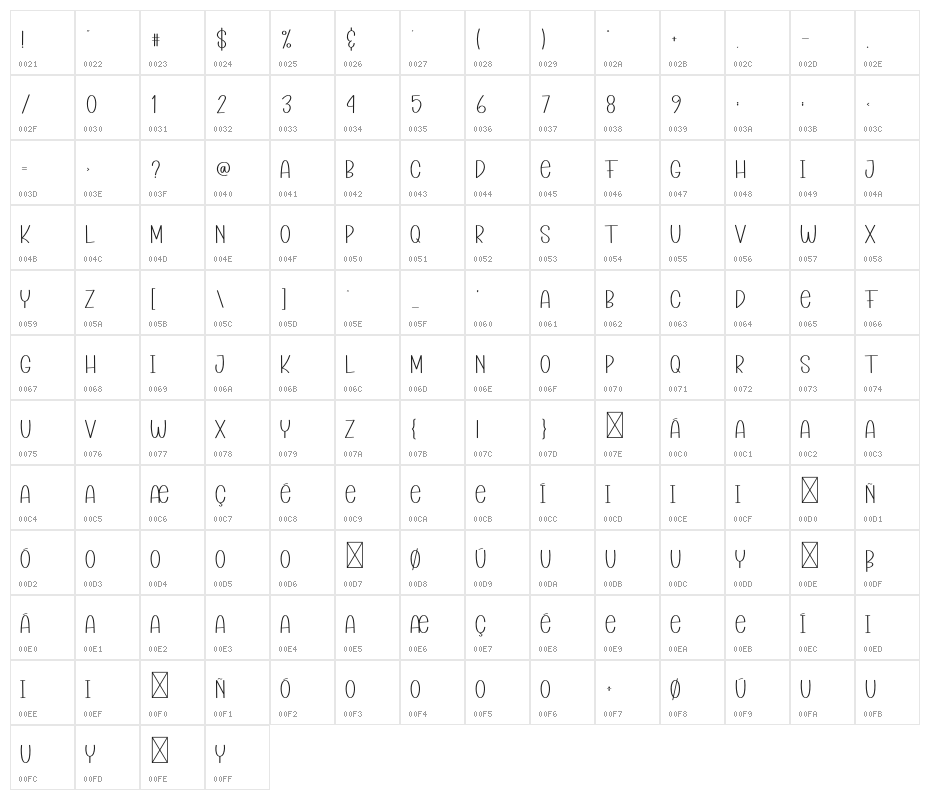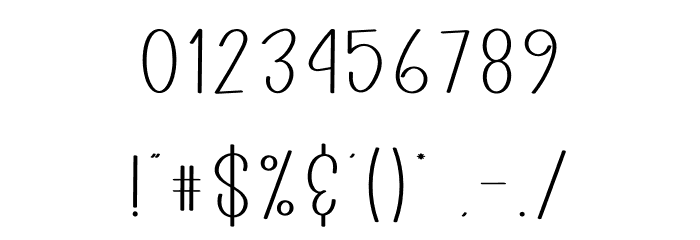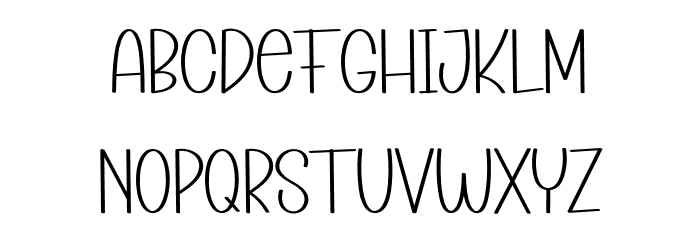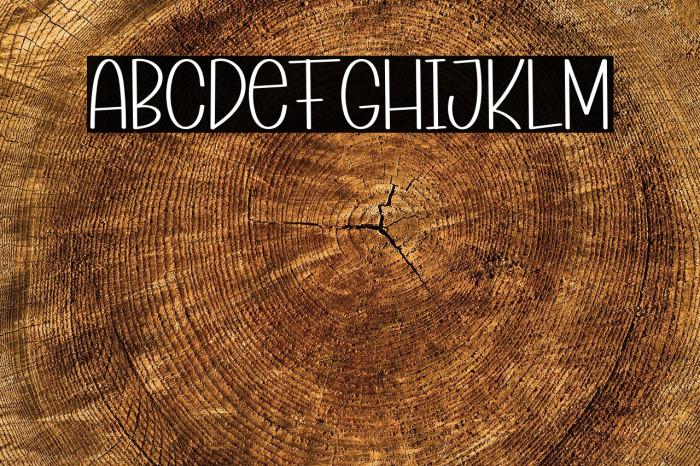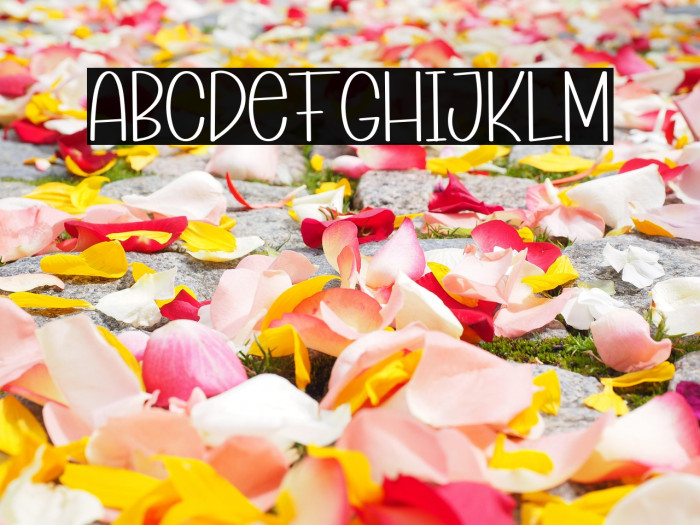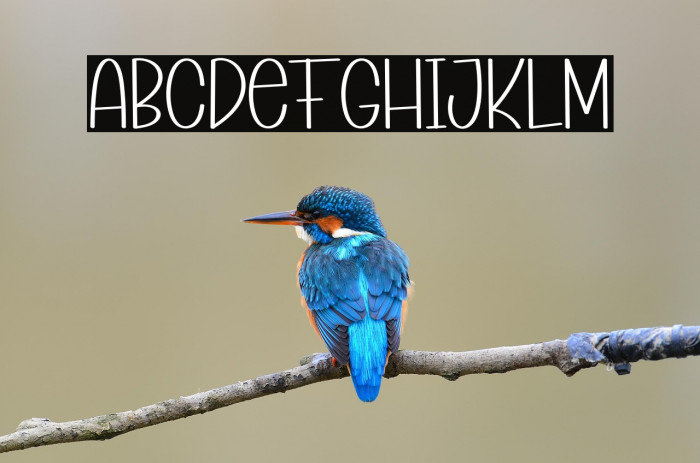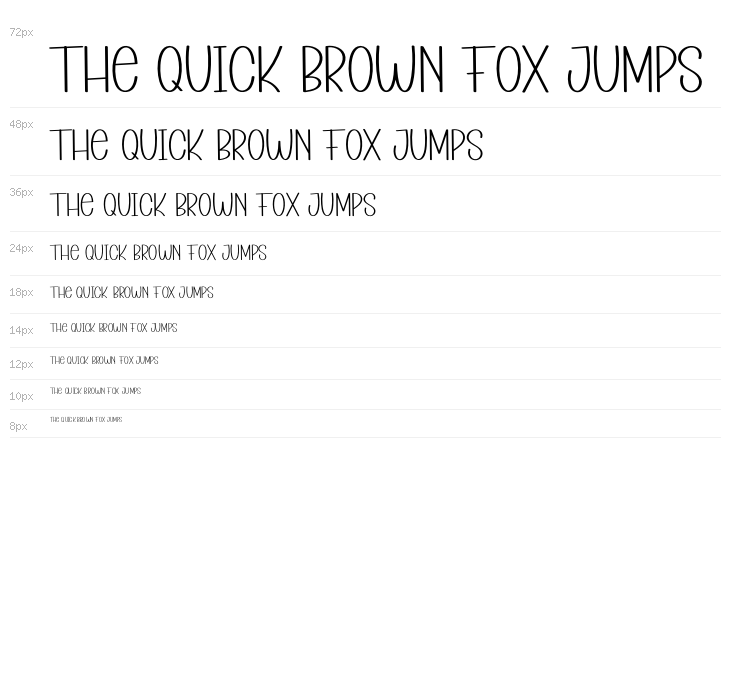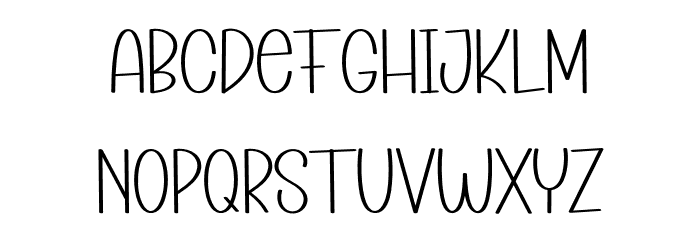
Summer Story Font
Summer Story Description
This font features a playful and casual handwritten style, characterized by its tall, narrow letters with a slight slant. The strokes are consistent in weight, giving it a clean and uniform appearance. The rounded edges and smooth curves add a friendly and approachable feel, making it suitable for informal and creative projects. The numerals and special characters maintain the same playful aesthetic, ensuring cohesive design across all text elements. Its simplicity and charm make it versatile for various design needs.
| Width | Condensed |
| Overall Style | Casual |
| Use Case | Headlines, Informal text, Creative projects |
| Proposed Projects | Ideal for greeting cards, children's books, playful branding, and social media graphics. |